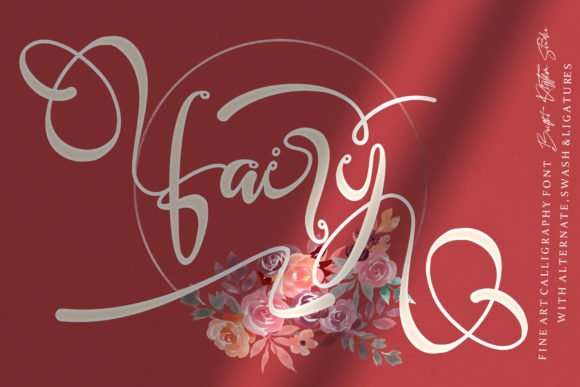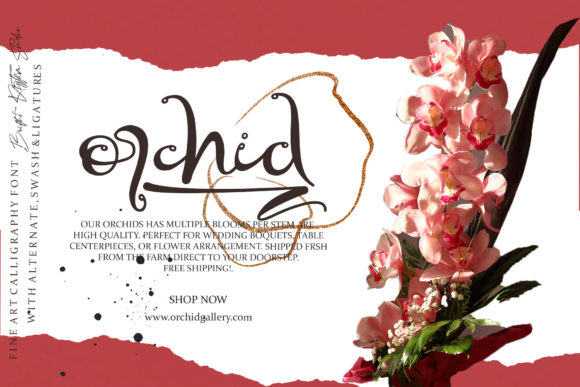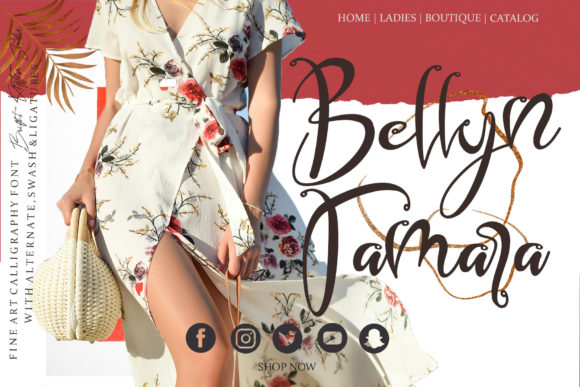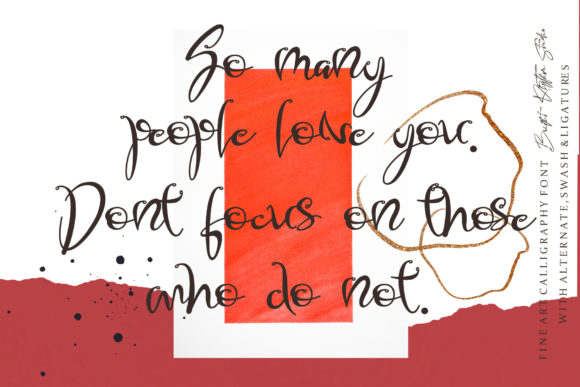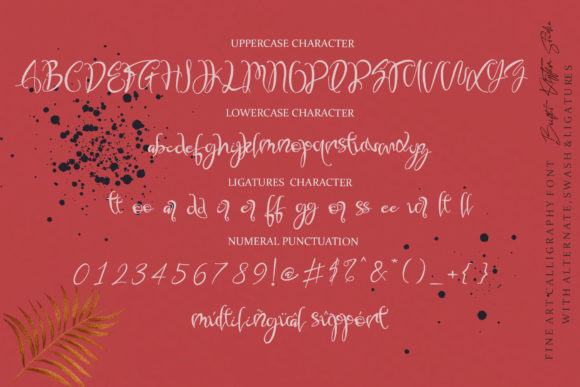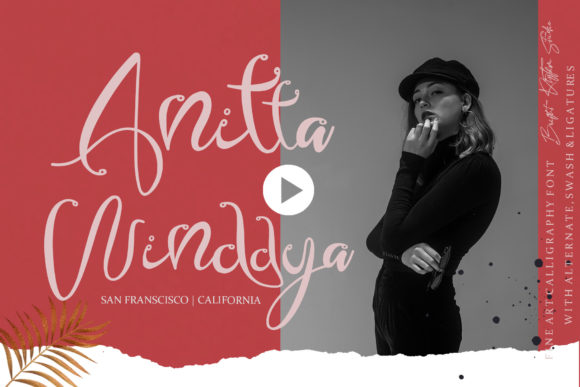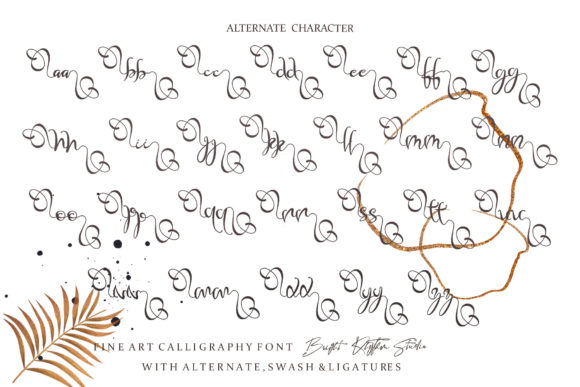
Discover the Magic of Fairy Font
As designers, we’ve all been there – staring at a blank canvas, trying to conjure up the perfect visual identity for our next project. The words flow, the ideas swirl, and then, suddenly, it hits us – the perfect font. For me, that moment came when I stumbled upon the enchanting Fairy Font. Its elegant curves and refined script style had me spellbound, and I knew I had to share it with the world.
Fairy Font is more than just a pretty face – it’s a sophisticated tool designed to elevate any project. With its stylish alternates and ligatures, this font is the perfect match for designers looking to add a touch of class to their work. And with its PUA encoding, accessing all the glyphs and swashes is a breeze.
- Unique Characteristics: This font features intricate, whimsical designs with delicate flourishes, making it perfect for creating magical and dreamy effects in various design projects.
Fairy Font Review
Overall, I think Fairy Font has a lot going for it, but also a few areas where it falls short. Here’s my honest take.
- Fairy Font has a playful, whimsical feel that’s perfect for projects that need a touch of magic.
- The font is highly customizable, with a wide range of options for color, size, and style.
- The font is well-suited for digital projects, with clear and readable text that’s easy on the eyes.
- Fairy Font can feel a bit over-the-top for more serious or professional projects.
- The font may not be as versatile as some other options, and can feel a bit one-dimensional.
- The font’s default settings can be a bit too bold or bright, and may require some tweaking to get just right.
I’d say Fairy Font is a solid choice for designers who need a fun, playful font for their projects. While it may not be the best option for every situation, it’s definitely worth considering when you need a little magic in your design.
Tips for Getting the Most Out of Fairy Font
Here are a few tips to help you get the most out of Fairy Font:
- Use Fairy Font for whimsical and magical designs.
- Combine Fairy Font with other playful fonts for a unique look.
Fairy Font is perfect for:
- Children’s book covers and illustrations.
- Magical and fantasy-themed designs.
- Whimsical greeting cards and party invitations.
Alternatives to Fairy Font
Curlz
Curlz is a playful, cursive script font that can be used for titles and headings in designs that require a whimsical touch. It’s often used in children’s books, greeting cards, and other applications where a touch of fantasy is needed. While Curlz is similar to Fairy Font in its playful, handwritten style, it has a more pronounced, curly feel that’s well-suited to titles and short text snippets.
Great Vibes is a modern, handwritten font with a more elegant and sophisticated feel than Fairy Font. It’s often used in designs that require a touch of luxury and sophistication, such as invitations, menus, and other high-end applications. While Great Vibes shares some similarities with Fairy Font in its handwritten style, it has a more refined and polished feel that’s well-suited to longer text passages.
Playfair Display is a high-end, elegant script font that’s often used in designs that require a touch of luxury and sophistication. It’s well-suited to titles, headings, and short text passages, and is often used in applications such as invitations, menus, and other high-end materials. While Playfair Display has a more formal feel than Fairy Font, it shares some similarities in its elegant, handwritten style.